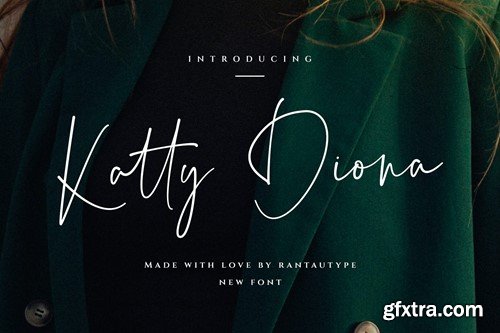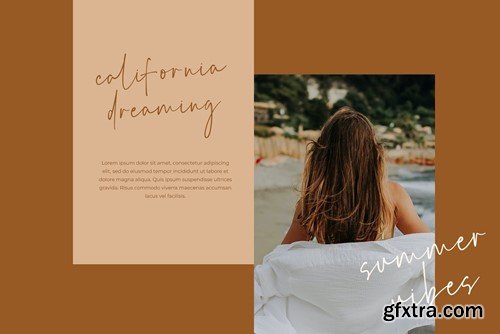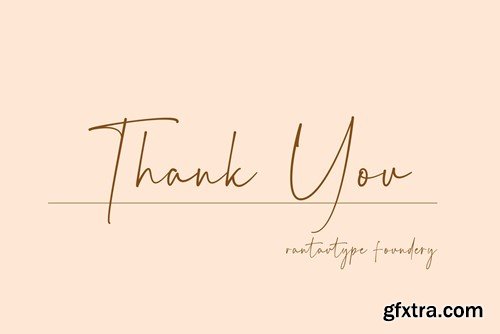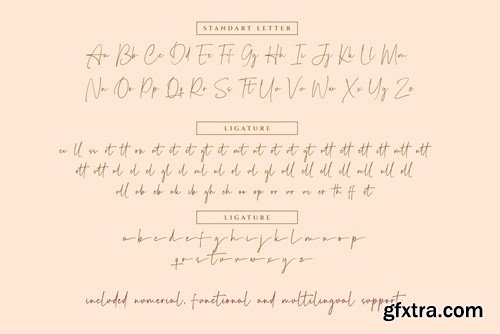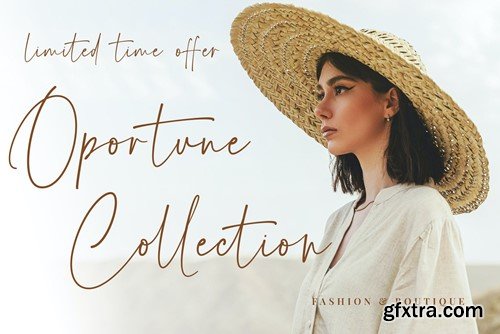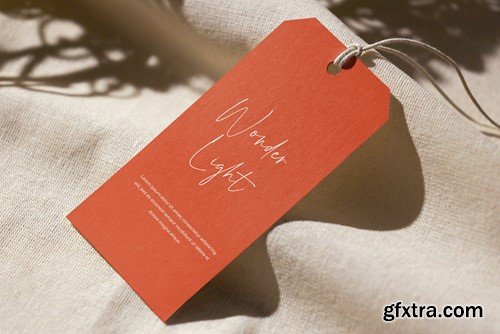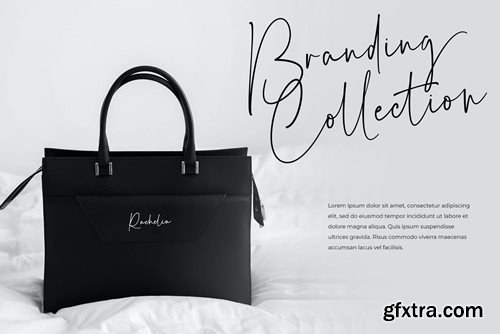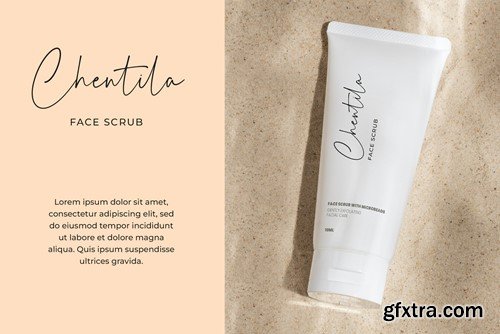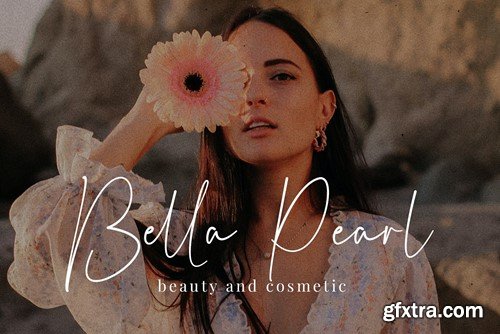
卡蒂·迪安娜签名字体 QWG3DX9
Katty Diona is creative signature business font which can be interpreted professional with stylish and natural curve. We keep this font looks modern, minimalist, elegant, readable, stylish, catchy and easy to use. Katty Diona come with alternate, ligature and multilingual accent support. Katty Diona is a beautiful choice for any creative endeavor, chic, lifestyle design such as logos, title, watermark on photography, cover, branding, display and magazine, wedding event, quotes, album cover, business card, corporate, business project and many other design project. Katty Diona here to elevate you branding!! Features: File include: Langguage support: Afrikaans, Albanian, Asu, Basque, Bemba, Bena, Breton, Chiga, Cornish, Dutch, English, Estonian, Filipino, Finnish, Friulian, Galician, Gusii, Indonesian, Irish, Italian, Kabuverdianu, Kalenjin, Kinyarwanda, Luo, Luxembourgish, Luyia, Machame, Makhuwa-Meetto, Makonde, Malagasy, Manx, Morisyen, North, Ndebele, Nyankole, Oromo, Portuguese, Quechua, Romansh, Rombo, Rundi, Rwa, Samburu, Sango, Sangu, Scottish, Gaelic, Sena, Shambala, Shona, Soga, Somali, Spanish, Swahili, Swedish, Swiss, German, Taita, TesoUzbek (Latin), Volapük, Vunjo, Zulu Thank you for visit our store and Hope you enjoy our font!!